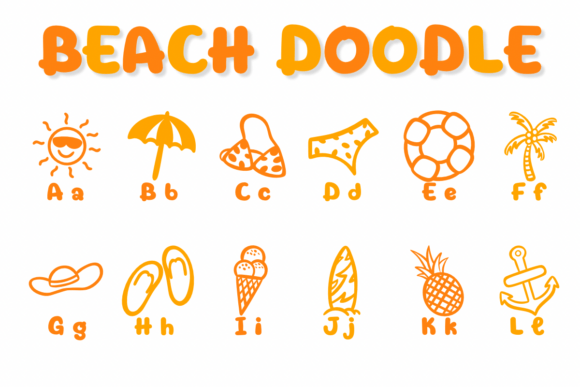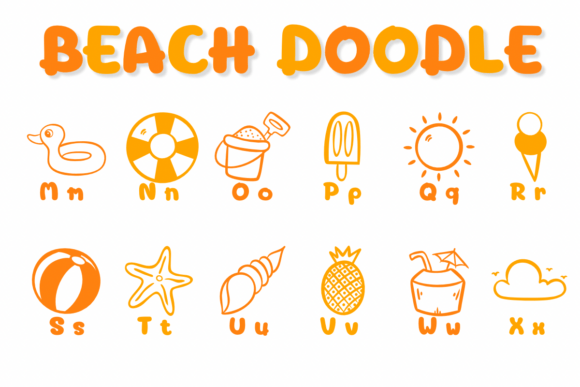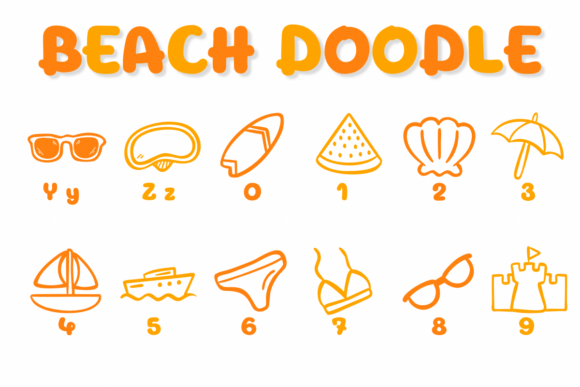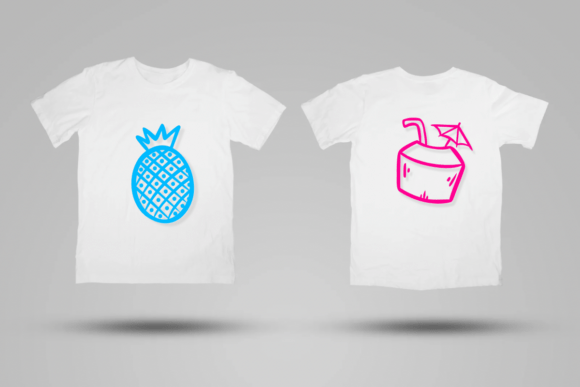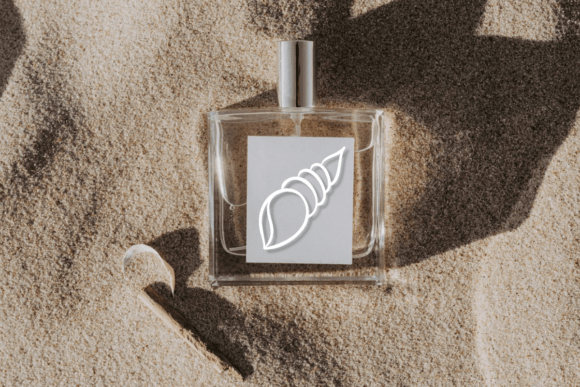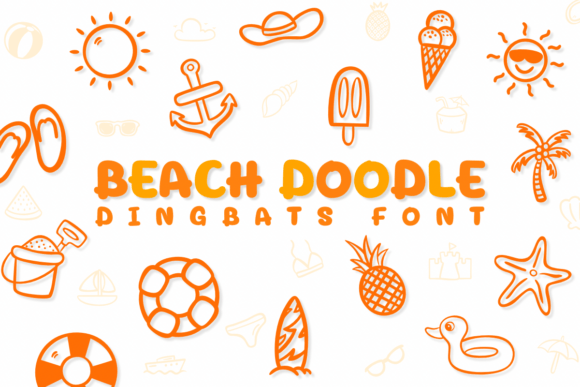
Introducing Beach Doodle Font: Add a Touch of Sunshine to Your Designs
Are you looking for a fun and playful way to add some summer vibes to your creative projects? Look no further than the Beach Doodle Font! This delightful dingbats font is packed with cheerful summer-themed illustrations that are sure to bring a smile to your face. From suns and ice cream cones to flip-flops and palm trees, Beach Doodle is the perfect addition to any design that needs a touch of sunshine.
What is Beach Doodle Font?
Beach Doodle Font is a unique and hand-drawn dingbats font that features a wide range of summer-themed illustrations. Each character in the font is carefully crafted to bring a sense of joy and playfulness to your designs. The font includes a variety of images, such as:
• Suns and sunhats
• Ice cream cones and beach balls
• Flip-flops and sunglasses
• Palm trees and beach houses
• Seagulls and fish
These illustrations are perfect for adding a touch of summer fun to your designs, whether you’re creating invitations, scrapbooking, or crafting.
Perfect for Kids’ Crafts and Summer Invitations
Beach Doodle Font is ideal for kids’ crafts and summer invitations. The font’s playful and colorful illustrations are sure to delight kids and adults alike. Use the font to create fun and engaging invitations for summer parties, beach trips, or backyard barbecues. You can also use the font to create educational materials, such as alphabet charts or activity sheets, that are both fun and interactive.
Great for Scrapbooking and Beach-Themed Branding
Beach Doodle Font is also perfect for scrapbooking and beach-themed branding. The font’s hand-drawn illustrations add a touch of charm and personality to any design, making it ideal for creating beautiful and unique scrapbook pages or branding materials. Use the font to create eye-catching logos, business cards, or social media graphics that showcase your brand’s personality and style.
Why Choose Beach Doodle Font?
There are many reasons why Beach Doodle Font is the perfect choice for your summer designs. Here are just a few:
• Unique and playful illustrations: Beach Doodle Font features a wide range of unique and playful illustrations that are sure to add a touch of summer fun to your designs.
• Hand-drawn with love: Each character in the font is carefully hand-drawn with love and attention to detail, making every illustration a one-of-a-kind masterpiece.
• Versatile: The font can be used for a wide range of projects, from kids’ crafts and summer invitations to scrapbooking and beach-themed branding.
Font Name Beach Doodle Font
Author Chonada
Beach Doodle Font is a fun and playful dingbats font that’s perfect for adding a touch of sunshine to your creative projects. With its wide range of summer-themed illustrations, hand-drawn with love and care, this font is ideal for kids’ crafts, summer invitations, scrapbooking, and beach-themed branding. So why wait? Download Beach Doodle Font today and start creating your own unique and playful designs!